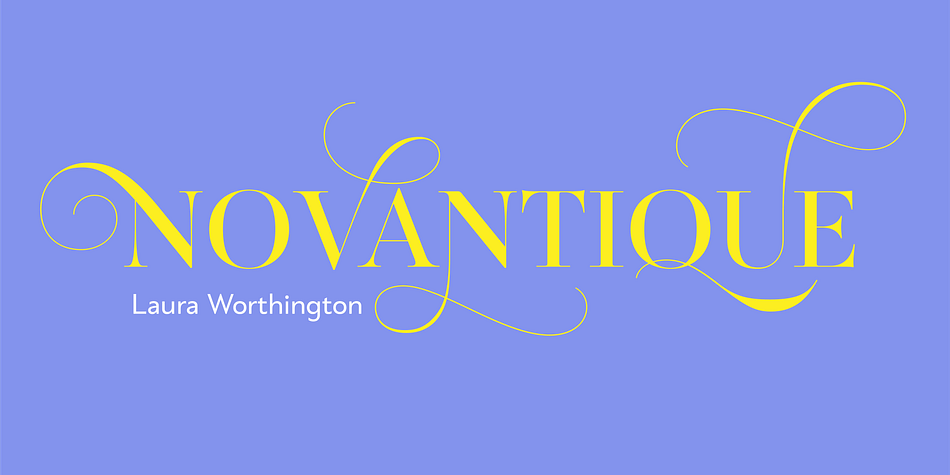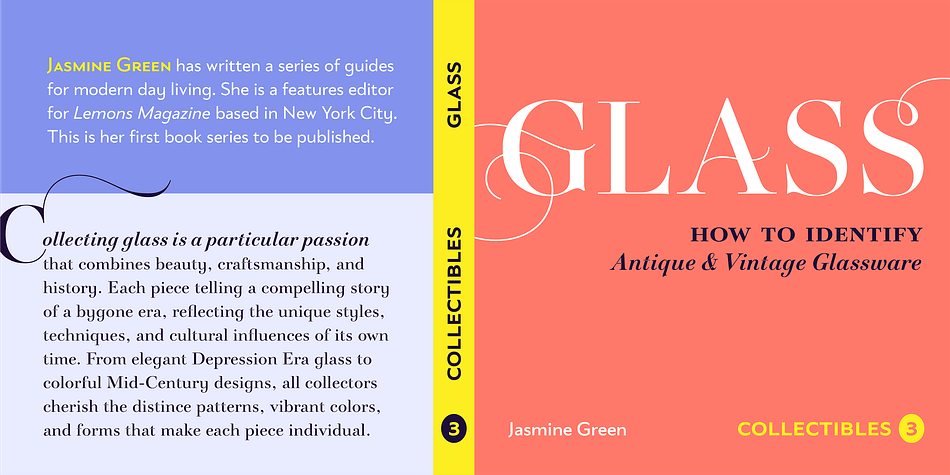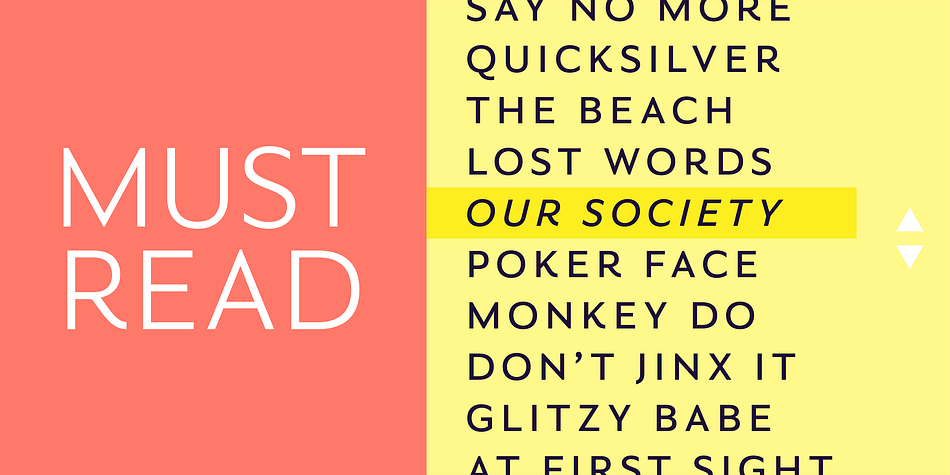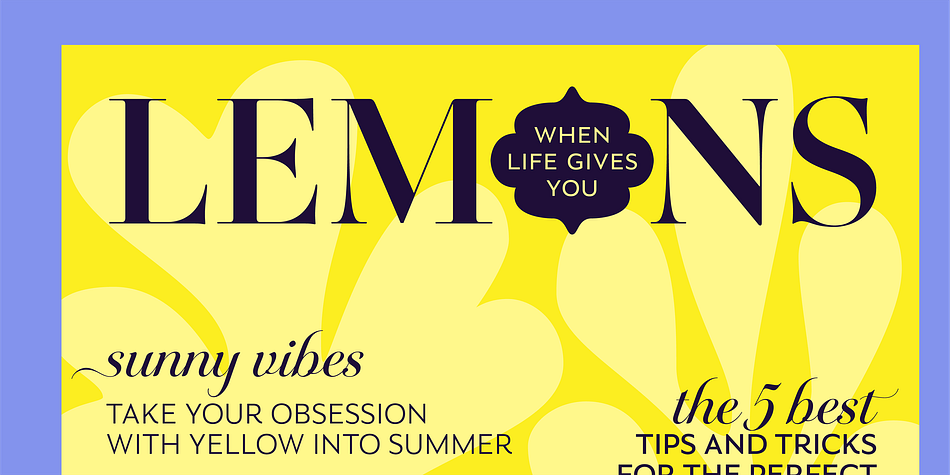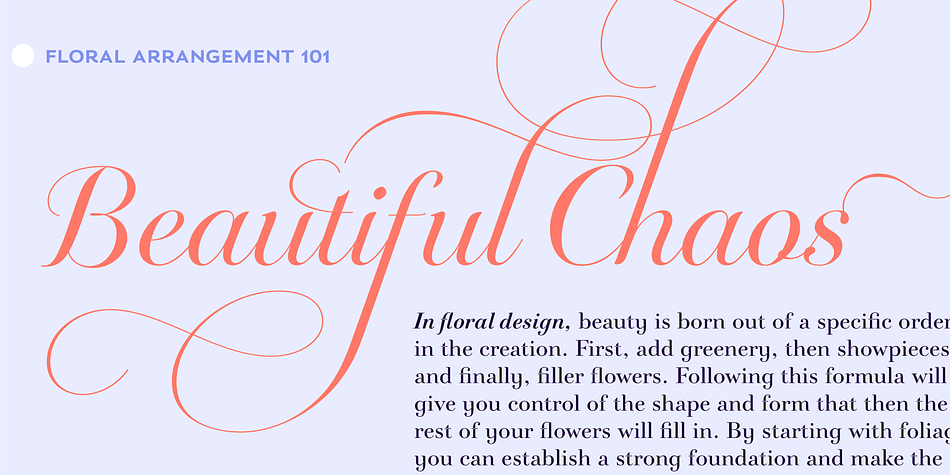
Novantique Serif
Designed by Laura Worthington, Novantique Serif is a serif font family. This typeface has thirteen styles and was published by Laura Worthington.
Novantique is a captivating collection of four distinct yet visually related families. The 22 styles together—Sans, Script, Serif Display, and Serif—represent elegance and modernity. All are ideal for creating an indelible solution for a richly layered editorial. Used individually or in combination, these typefaces were designed to grace your front covers, headlines, sections, ledes, text, and bylines. Try Novantique; the opportunities for experimentation are endlessly enticing.